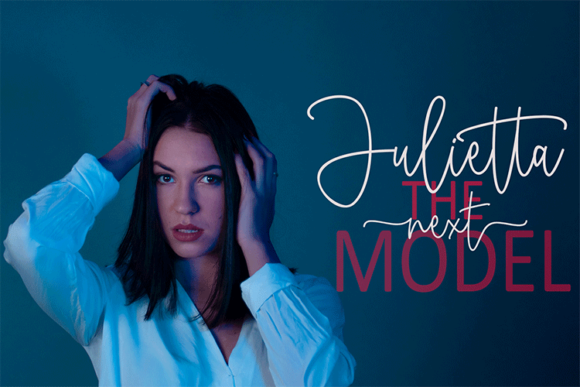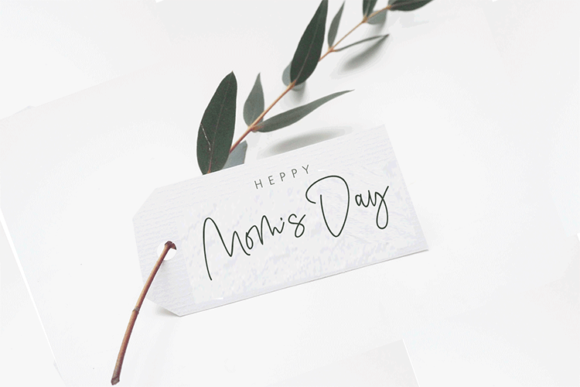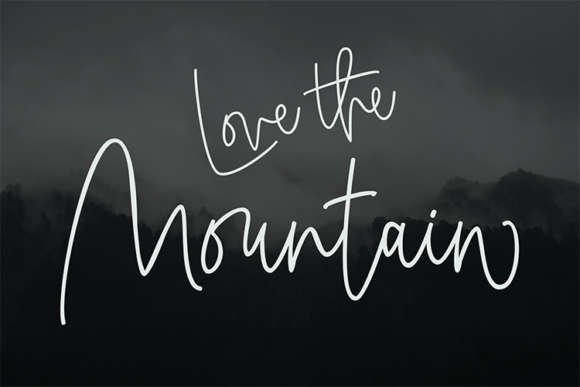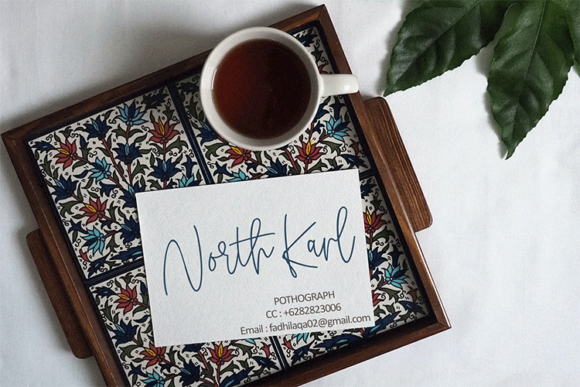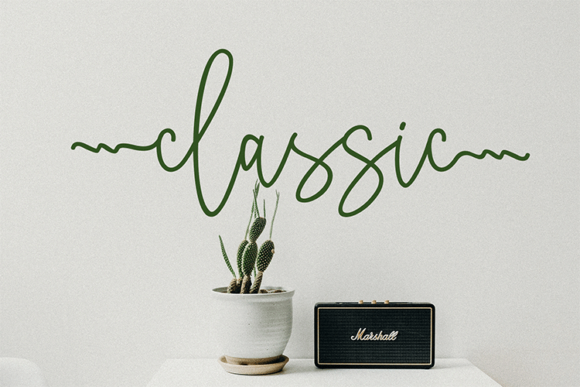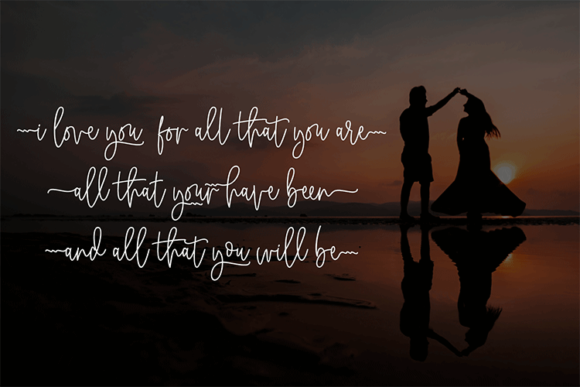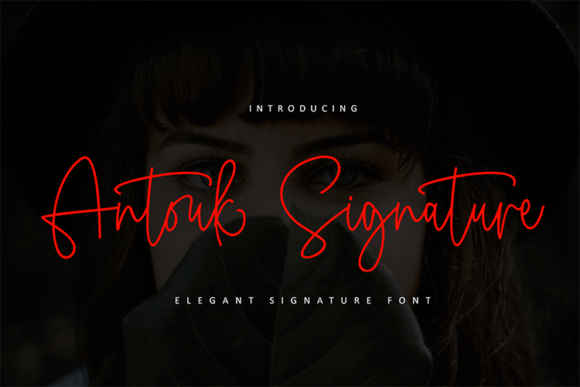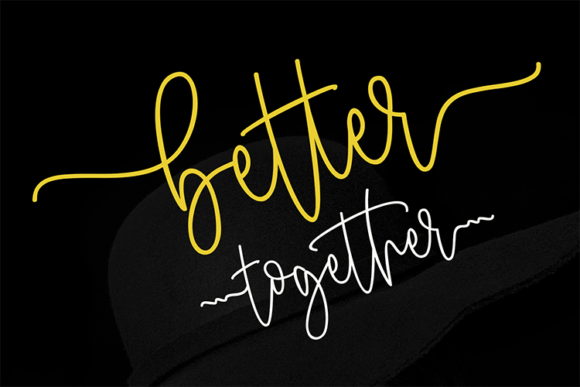
Antuok Signature Font
About Antuok Signature Font
Antuok Signature is an exquisite script font with a stylish and thin lettered design. This font exudes elegance and sophistication, making it perfect for a wide range of design projects. Whether you’re creating logos, branding materials, invitations, or social media graphics, Antuok Signature will add a touch of class to your work.
The PUA encoding of this font allows you to easily access all of the glyphs and swashes, providing you with a wide range of design options. You can customize and embellish your text with beautiful flourishes, ligatures, and decorative elements, giving your designs a unique and personalized touch.
Antuok Signature’s versatility is one of its greatest strengths. Its elegant and refined style makes it suitable for both formal and casual designs. Whether you’re aiming for a luxurious and upscale look or a more relaxed and contemporary feel, this font can adapt to your creative vision.
The thin and delicate letterforms of Antuok Signature add a sense of sophistication and grace to your typography. The flowing and smooth curves create a harmonious and pleasing visual rhythm. Each character is meticulously crafted to ensure a balanced and aesthetically pleasing result.
With Antuok Signature, you have the freedom to create spectacular designs that leave a lasting impression. Its versatility, combined with its PUA encoding, gives you the tools to explore endless possibilities and bring your creative ideas to life.
In conclusion, Antuok Signature is a stylish and thin lettered script font that offers versatility and elegance to your designs. Its PUA encoding provides easy access to glyphs and swashes, enabling you to create spectacular and personalized designs. Fall in love with the incredibly versatile style of Antuok Signature and let it elevate your creative projects to new heights.